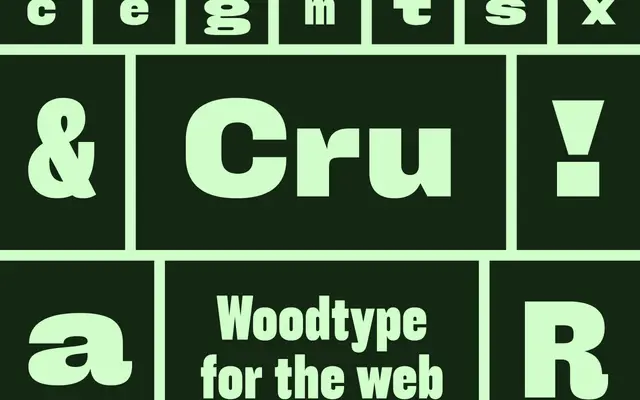
FC CRU
Font Club Belgica · Dries Wiewauters · 2023
A condensed gothic display typeface by Dries Wiewauters that bridges 19th-century American woodtype with contemporary geometric refinement.
Drawing lineage from William Leavenworth's early American woodtype and fonts such as Poplar, FC CRU replaces the rough energy of historical wood letterforms with smooth circular counters and flat terminals. The result sits between period authenticity and digital utility, making it workable across editorial and branding contexts without feeling purely historicist. Released in 2023 under Font Club Belgica, it supports Latin, Cyrillic and Greek scripts.
A display typeface drawing directly from 19th-century American woodtype traditions, specifically condensed gothic forms, updated with geometric precision and smooth digital-ready curves.